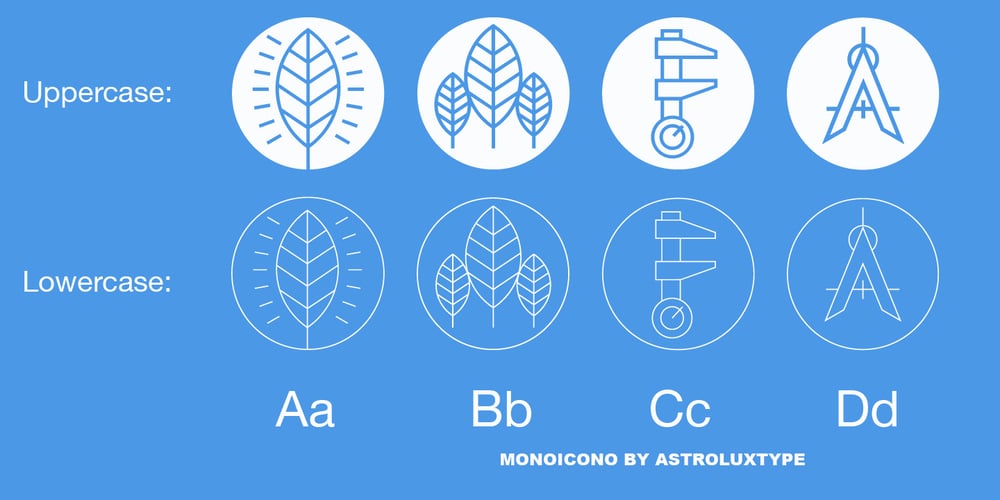
Monoicono Font Family was designed by Glenn Parsons and published by astroluxtype. Monoicono contains 1 styles and family package options. Monoicono is a graphics font which contains various iconography related to environmental, health, weather, emergency, quality control, and synergy. There are a total of sixty-six items which includes a light version in the lowercase letters and a bold version in the uppercase letters as well as various numbers that have additional icons. See the poster examples provided for all the dingbats/icons in the font. Recommended size usage would be approximately 62 points or above in size, although some icons will read fine much smaller. Note parenright and left, braceright and left have additional icons.